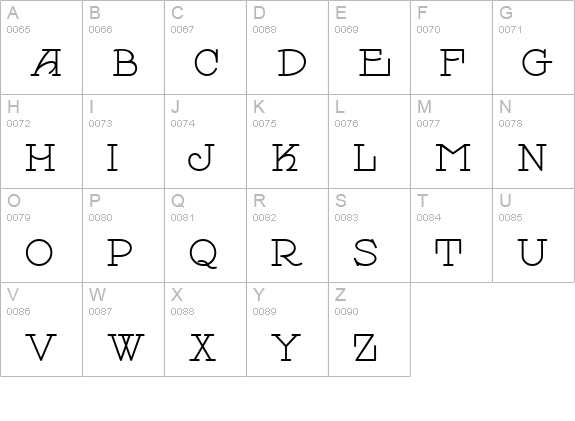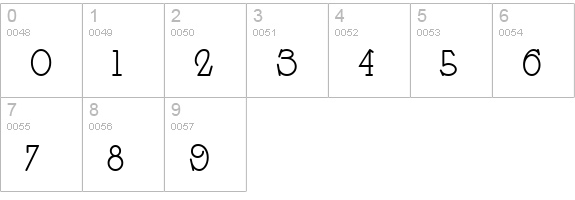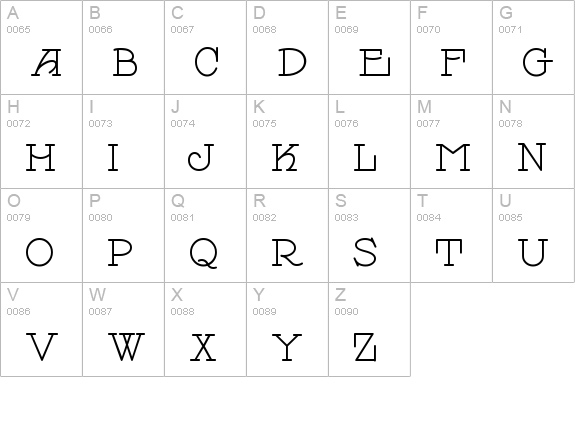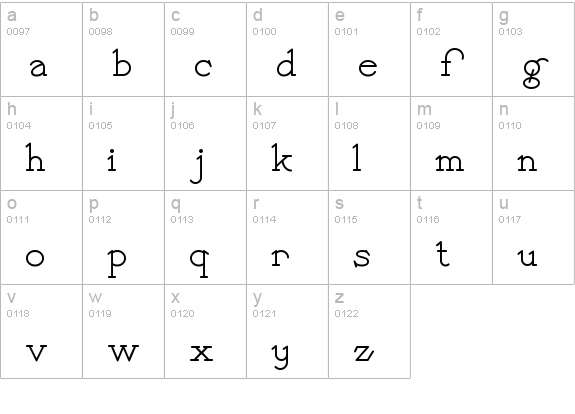
PayzantPen Font Details
Introducing PayzantPen, a breathtakingly unique and expressive font that effortlessly captures creativity and elegance. With its graceful strokes and fluid curves, this font transforms any design into a work of art, leaving a lasting impression on all who lay eyes on it. PayzantPen is not just any ordinary font – it is a free masterpiece that brings a touch of sophistication to any project. Whether used for logos, invitations, branding, or any other design endeavor, this font adds a distinctive charm that is sure to captivate audiences. What sets PayzantPen apart is not only its aesthetic appeal but also its versatility. It seamlessly adapts to any style or theme, making it an ideal choice for both modern and classic designs. Its carefully crafted letterforms effortlessly blend together, creating a harmonious and visually pleasing composition. What makes PayzantPen even more remarkable is that it is freely available to download at FontsMarket.com. This means that designers and enthusiasts alike can easily access this extraordinary font and incorporate it into their creative projects without any hassle. So, whether you're a professional designer looking to elevate your work or an individual seeking to add a touch of elegance to personal projects, PayzantPen is the perfect choice. Download it today at FontsMarket.com and unlock a world of endless possibilities, all at your fingertips.